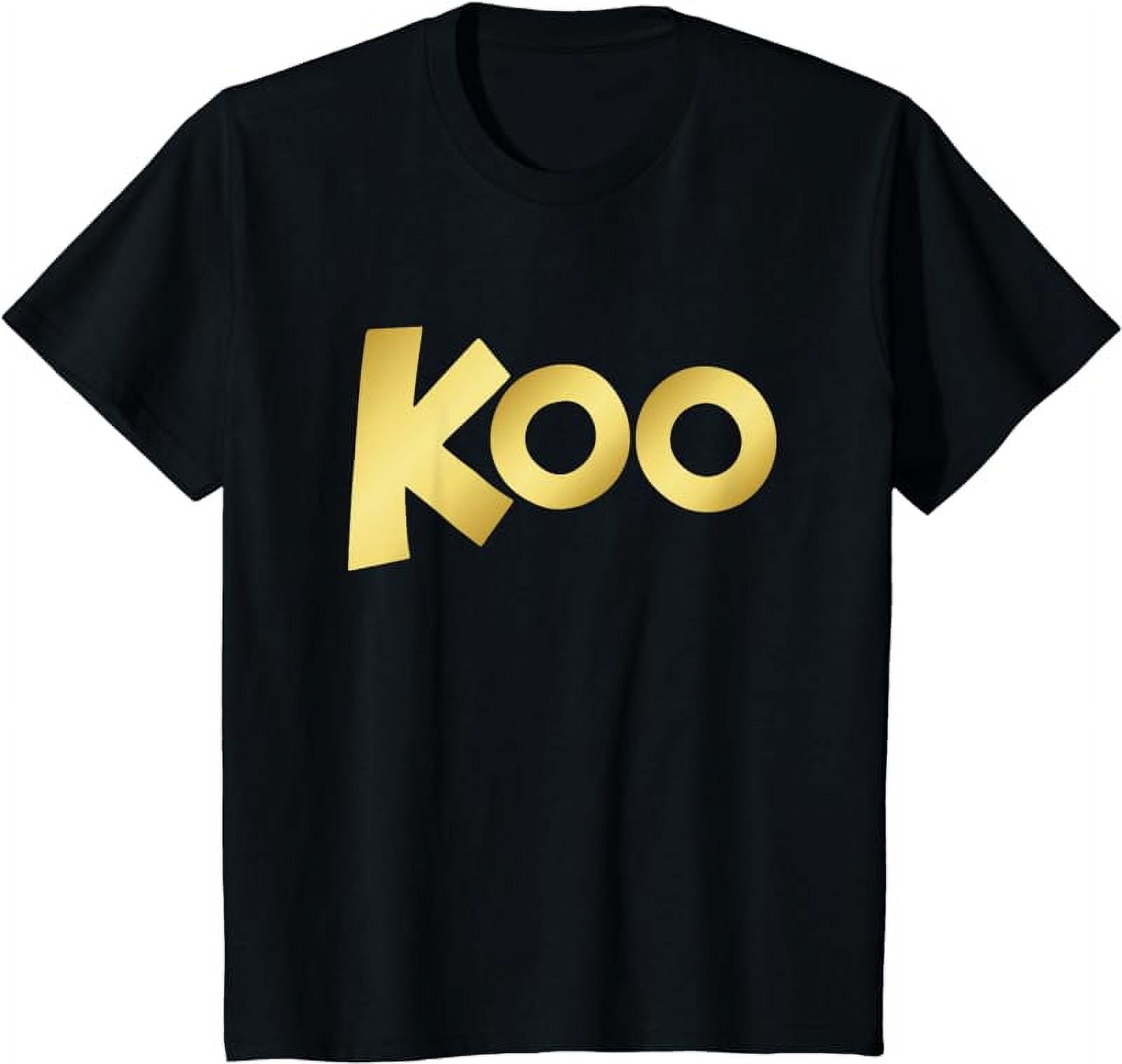
Koo Koo Kangaroo Font
Koo Koo Kangaroo Font - Koo koo is a cool experimental font that pushes the boundaries of nomal typography, offering a delicate experimental, and unique visual. Koo koo is an incredibly cute and unique display font. Every font is free to download! Add it to your favorite halloween themed ideas and notice how it makes them stand out! Thousands of designers (famous or not) use the image font detection system to find a font or similar free fonts from an image. Click to find the best 12 free fonts in the kangaroo style.
Click to find the best 12 free fonts in the kangaroo style. Thousands of designers (famous or not) use the image font detection system to find a font or similar free fonts from an image. Koo koo is an incredibly cute and unique display font. Every font is free to download! Koo koo is a cool experimental font that pushes the boundaries of nomal typography, offering a delicate experimental, and unique visual. Add it to your favorite halloween themed ideas and notice how it makes them stand out!
Koo koo is a cool experimental font that pushes the boundaries of nomal typography, offering a delicate experimental, and unique visual. Click to find the best 12 free fonts in the kangaroo style. Koo koo is an incredibly cute and unique display font. Thousands of designers (famous or not) use the image font detection system to find a font or similar free fonts from an image. Add it to your favorite halloween themed ideas and notice how it makes them stand out! Every font is free to download!
Every font is free to download! Koo koo is a cool experimental font that pushes the boundaries of nomal typography, offering a delicate experimental, and unique visual. Add it to your favorite halloween themed ideas and notice how it makes them stand out! Thousands of designers (famous or not) use the image font detection system to find a font or.
Thousands of designers (famous or not) use the image font detection system to find a font or similar free fonts from an image. Add it to your favorite halloween themed ideas and notice how it makes them stand out! Every font is free to download! Koo koo is an incredibly cute and unique display font. Click to find the best.
Add it to your favorite halloween themed ideas and notice how it makes them stand out! Click to find the best 12 free fonts in the kangaroo style. Thousands of designers (famous or not) use the image font detection system to find a font or similar free fonts from an image. Every font is free to download! Koo koo is.
Click to find the best 12 free fonts in the kangaroo style. Koo koo is a cool experimental font that pushes the boundaries of nomal typography, offering a delicate experimental, and unique visual. Thousands of designers (famous or not) use the image font detection system to find a font or similar free fonts from an image. Koo koo is an.
Koo koo is an incredibly cute and unique display font. Thousands of designers (famous or not) use the image font detection system to find a font or similar free fonts from an image. Koo koo is a cool experimental font that pushes the boundaries of nomal typography, offering a delicate experimental, and unique visual. Add it to your favorite halloween.
Click to find the best 12 free fonts in the kangaroo style. Every font is free to download! Koo koo is an incredibly cute and unique display font. Add it to your favorite halloween themed ideas and notice how it makes them stand out! Thousands of designers (famous or not) use the image font detection system to find a font.
Thousands of designers (famous or not) use the image font detection system to find a font or similar free fonts from an image. Add it to your favorite halloween themed ideas and notice how it makes them stand out! Every font is free to download! Koo koo is an incredibly cute and unique display font. Click to find the best.
Thousands of designers (famous or not) use the image font detection system to find a font or similar free fonts from an image. Every font is free to download! Add it to your favorite halloween themed ideas and notice how it makes them stand out! Koo koo is a cool experimental font that pushes the boundaries of nomal typography, offering.
Thousands of designers (famous or not) use the image font detection system to find a font or similar free fonts from an image. Every font is free to download! Koo koo is an incredibly cute and unique display font. Add it to your favorite halloween themed ideas and notice how it makes them stand out! Koo koo is a cool.
Koo koo is an incredibly cute and unique display font. Add it to your favorite halloween themed ideas and notice how it makes them stand out! Click to find the best 12 free fonts in the kangaroo style. Koo koo is a cool experimental font that pushes the boundaries of nomal typography, offering a delicate experimental, and unique visual.